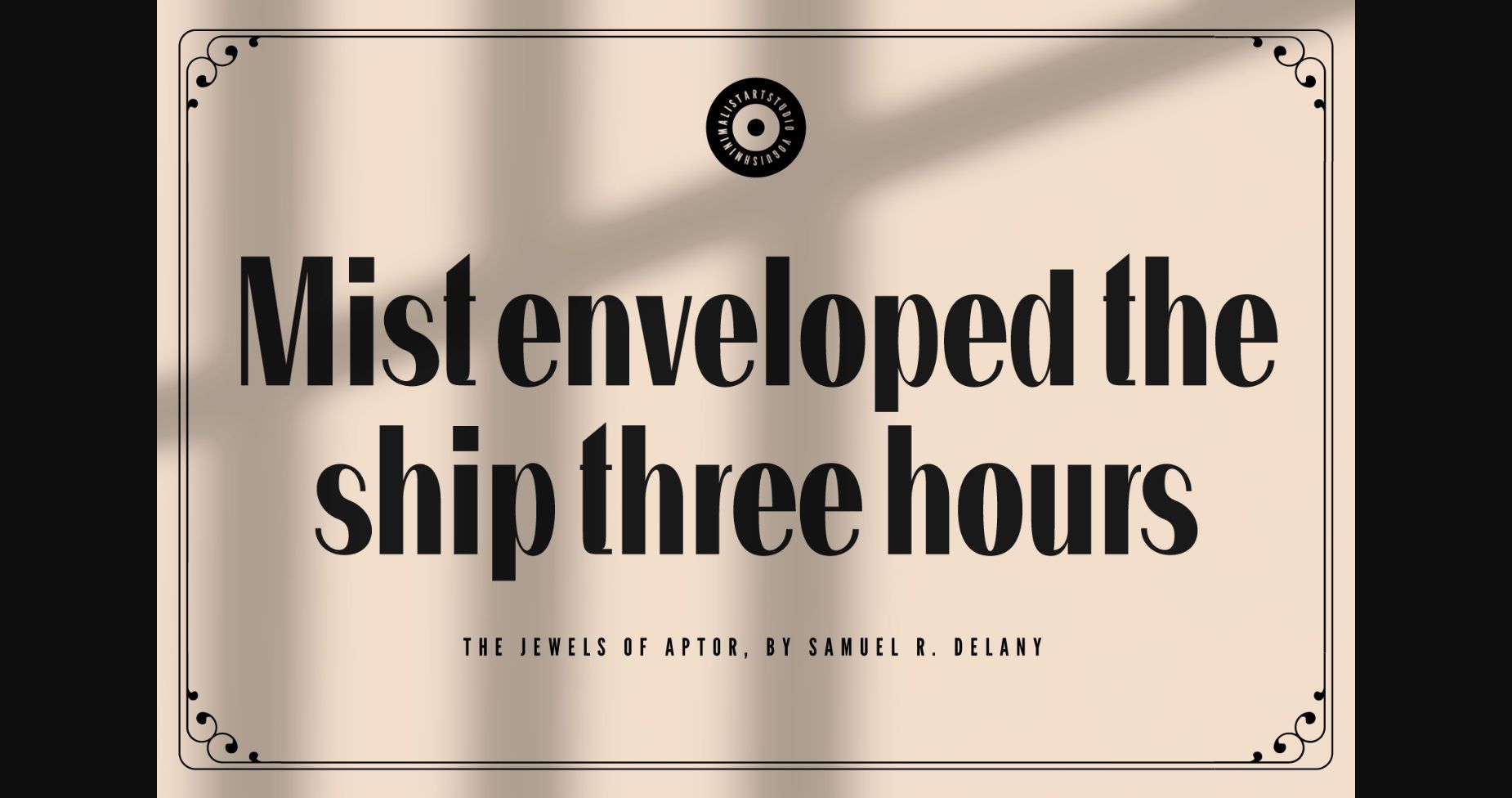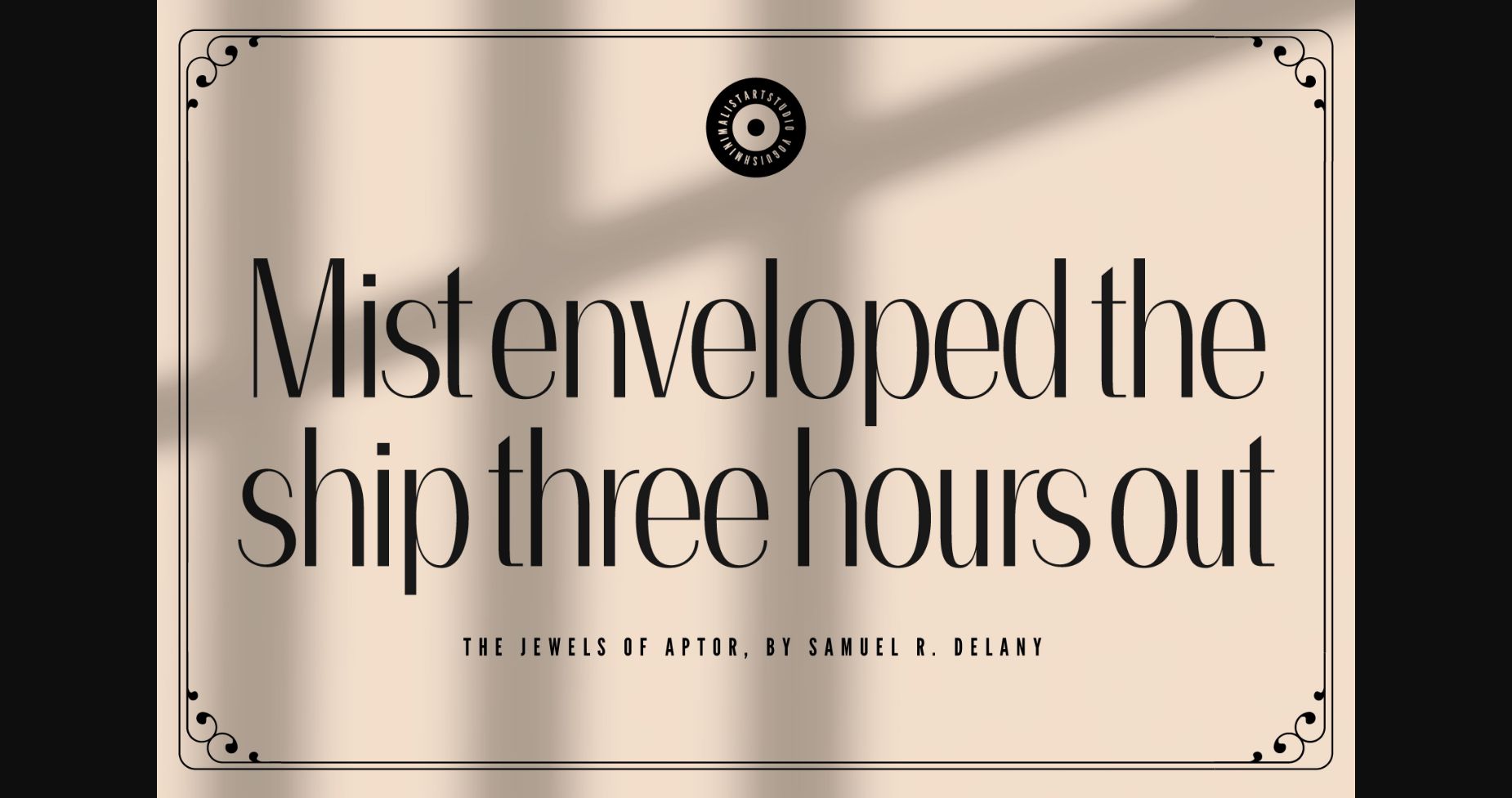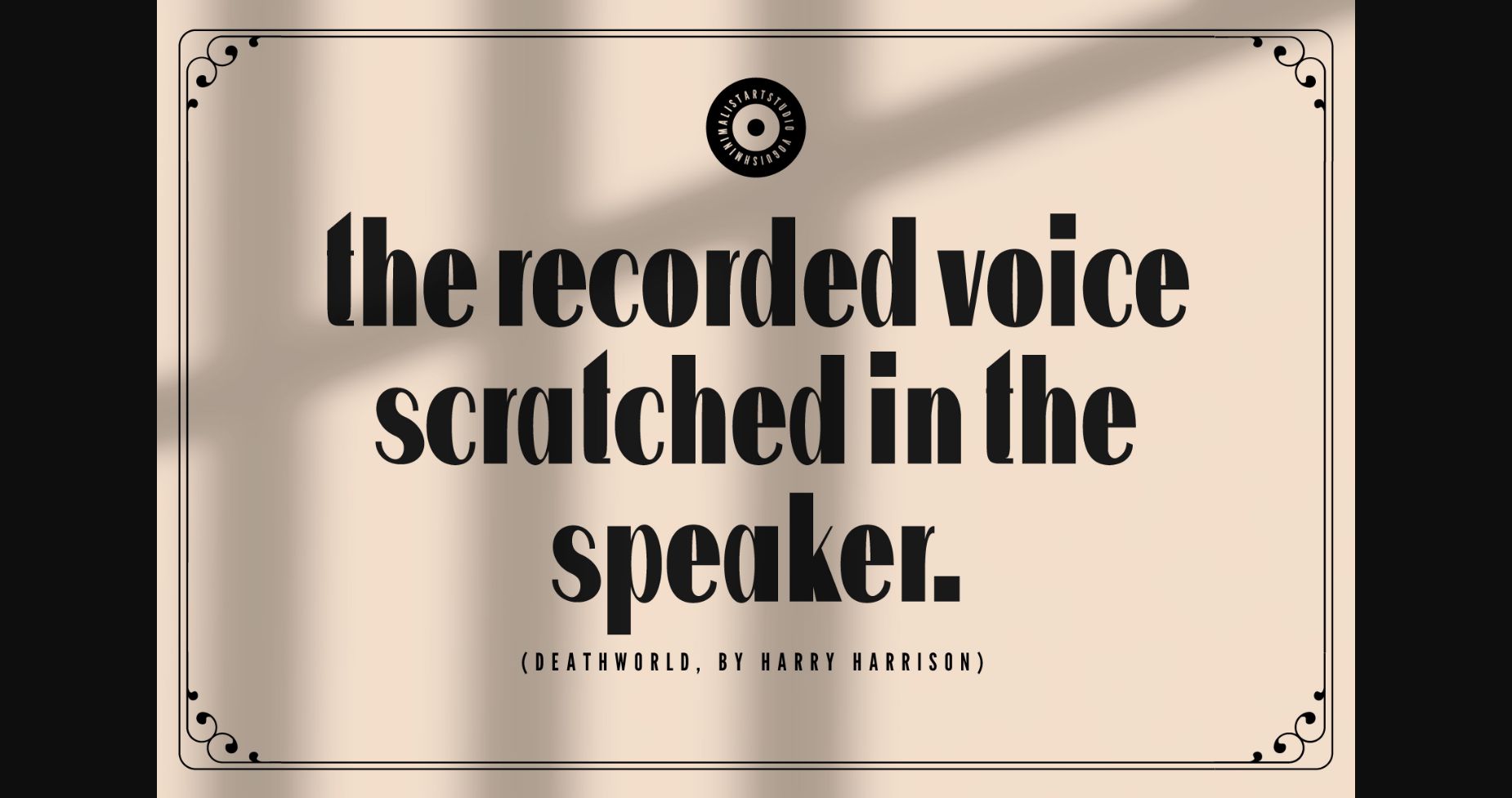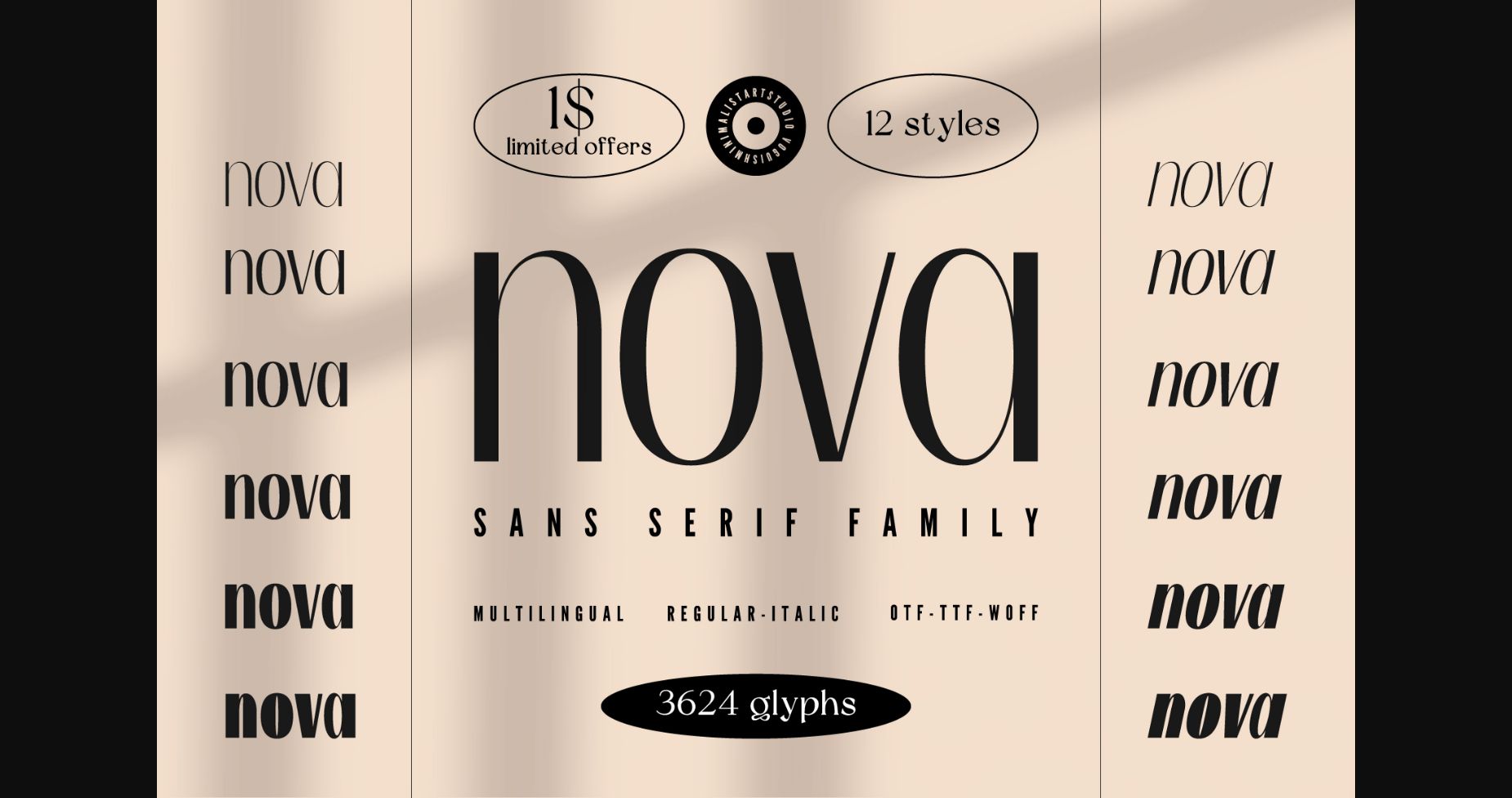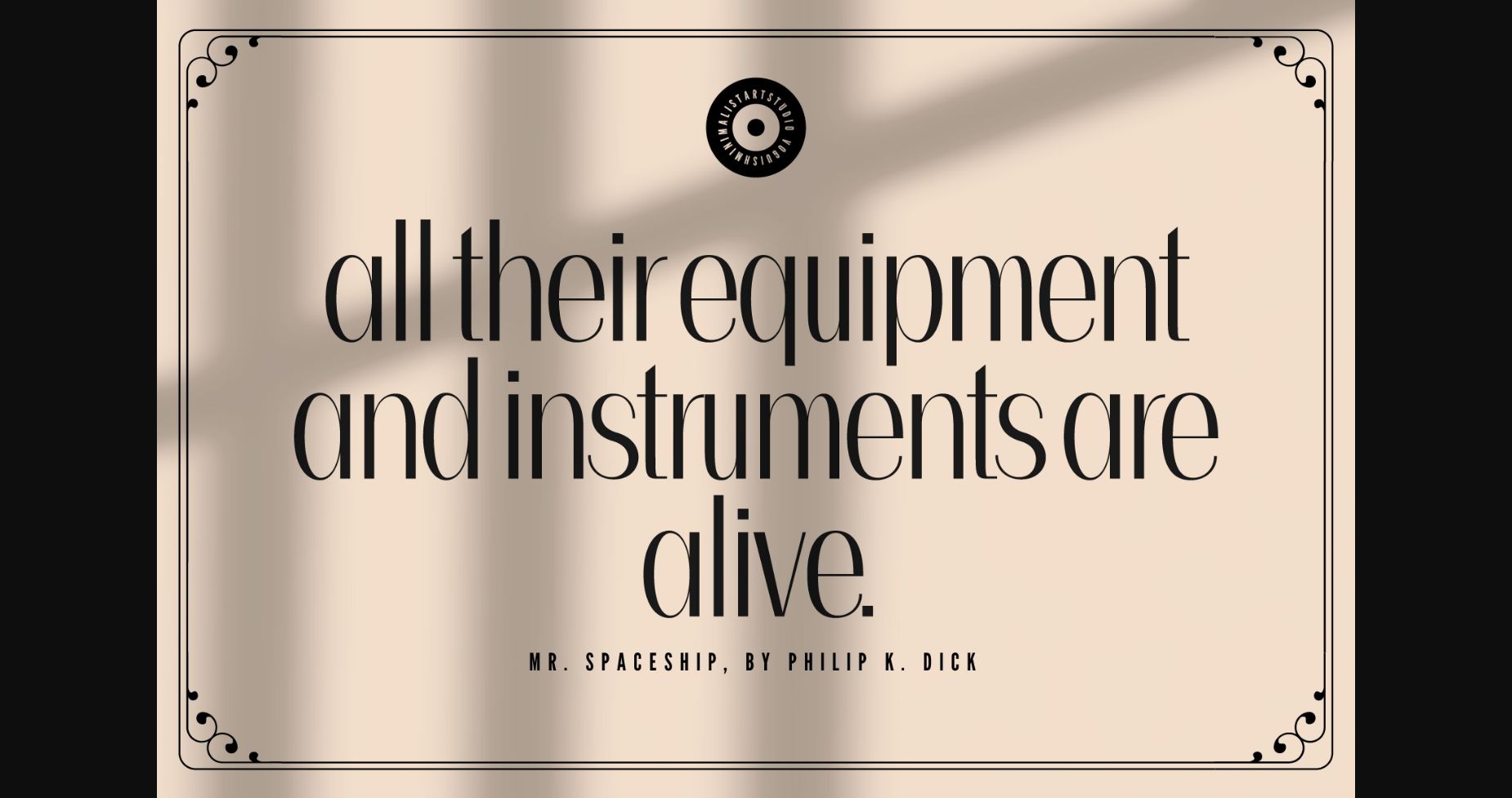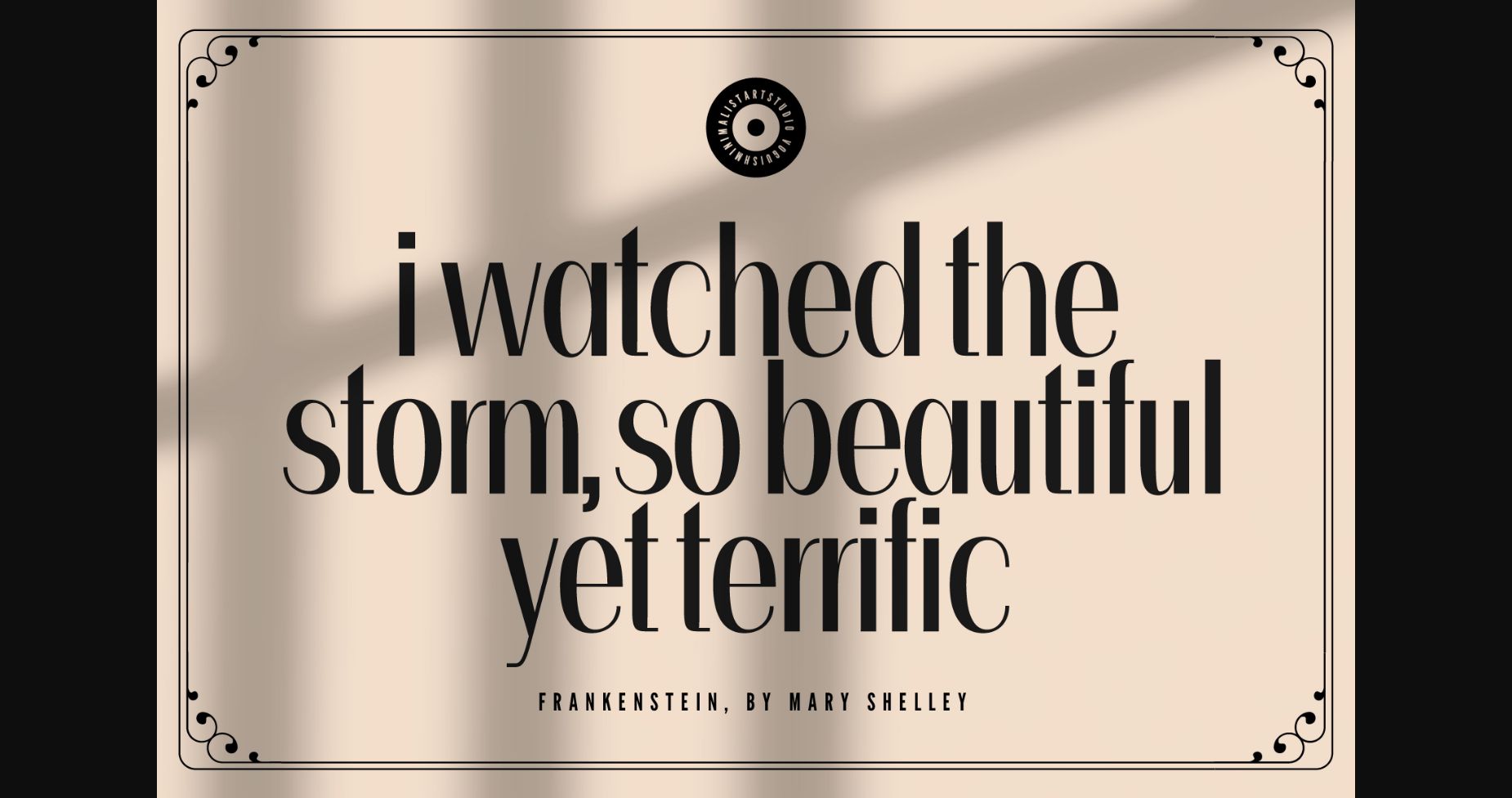
About Nova Font
The elegant and chic sans serif font family is designed with simplicity and functionality in mind, making it the ideal choice for modern, minimalist design projects. Nova’s clean and straightforward design makes it a versatile choice for branding, logos, websites, posters, and more. The font family includes 12 different font styles, each with its own unique personality, so you can find the perfect font for your design needs.